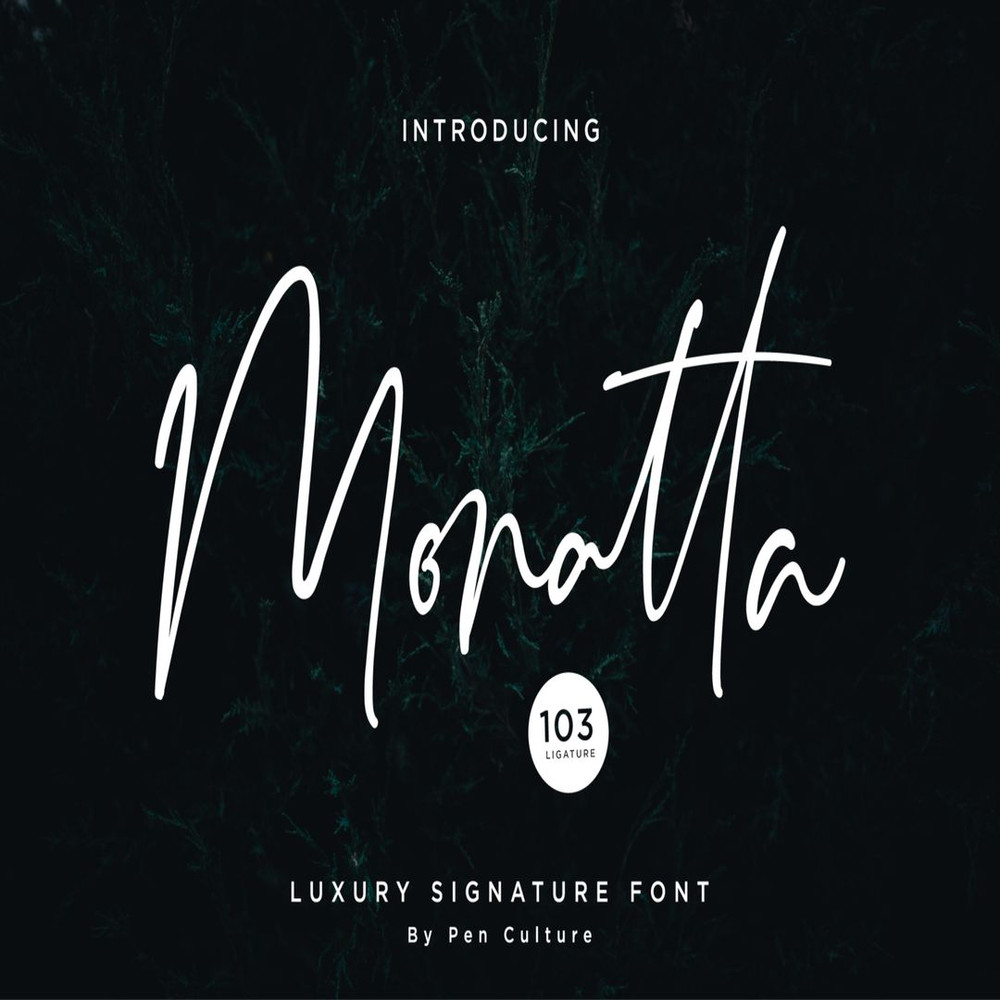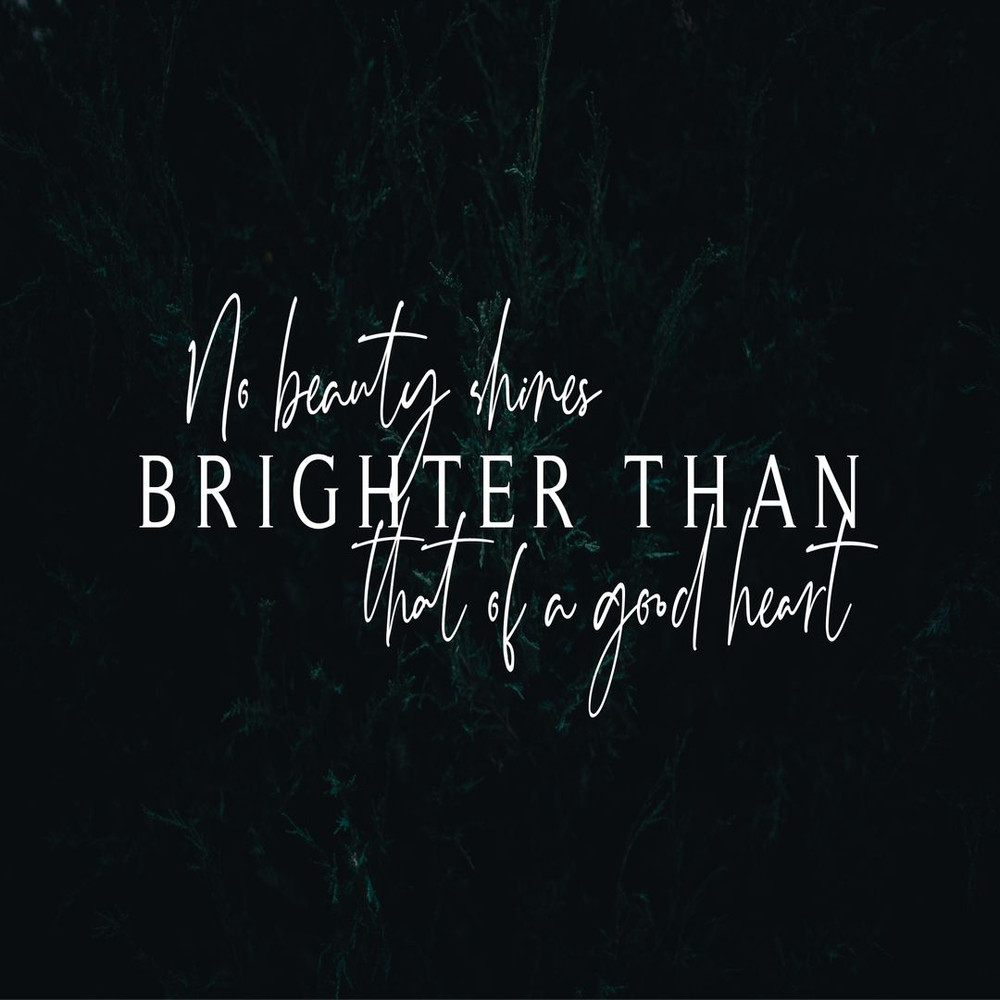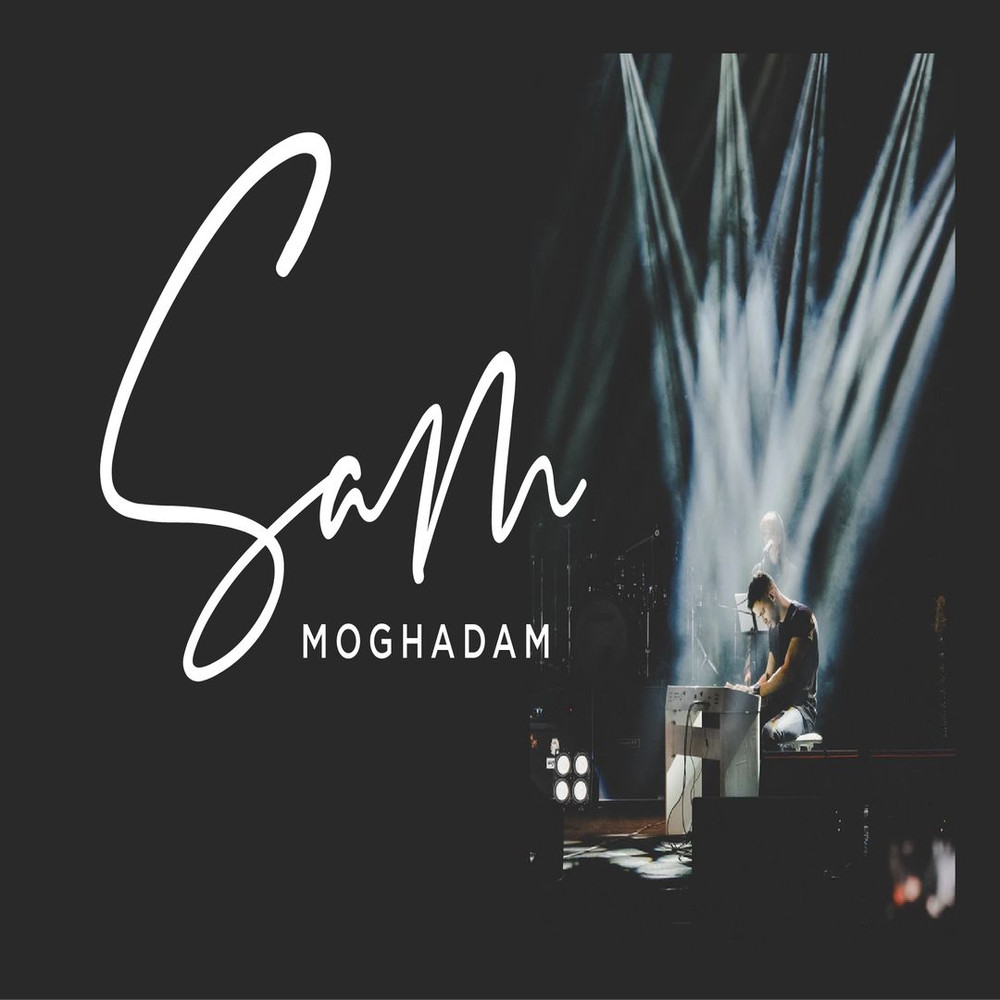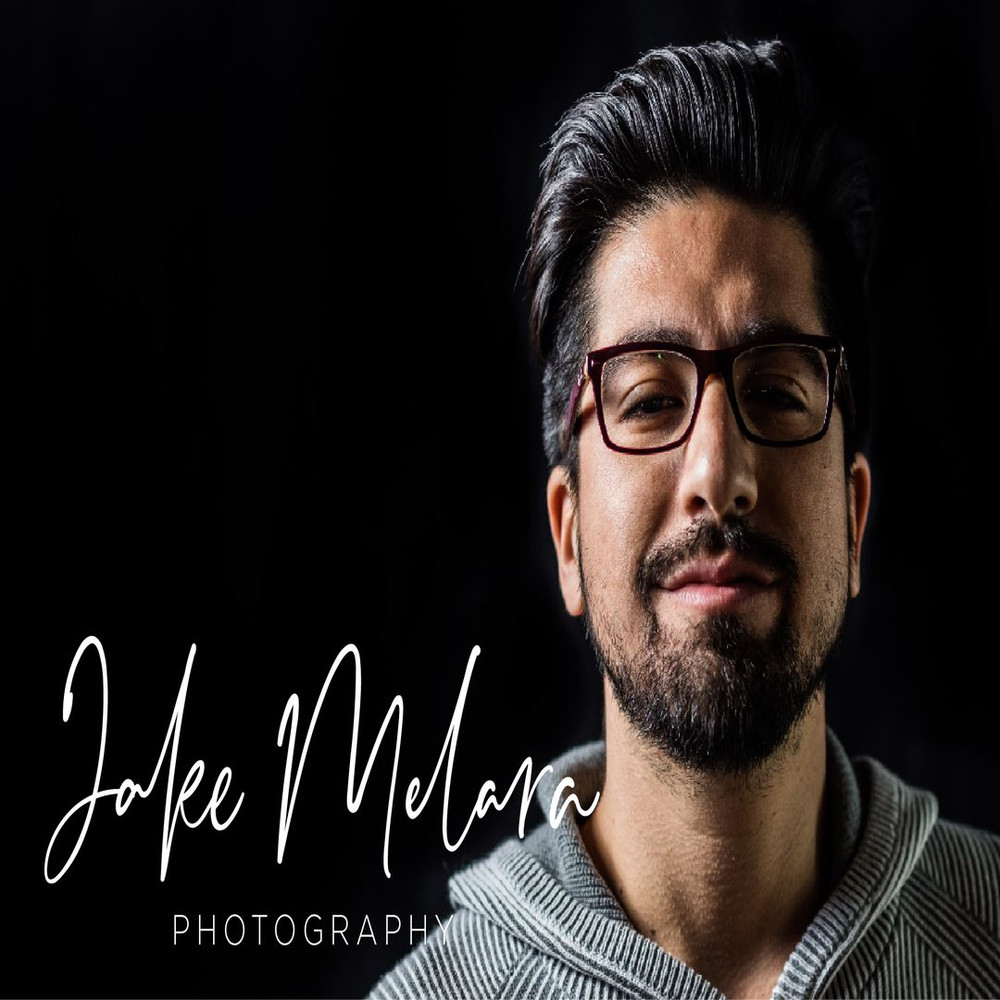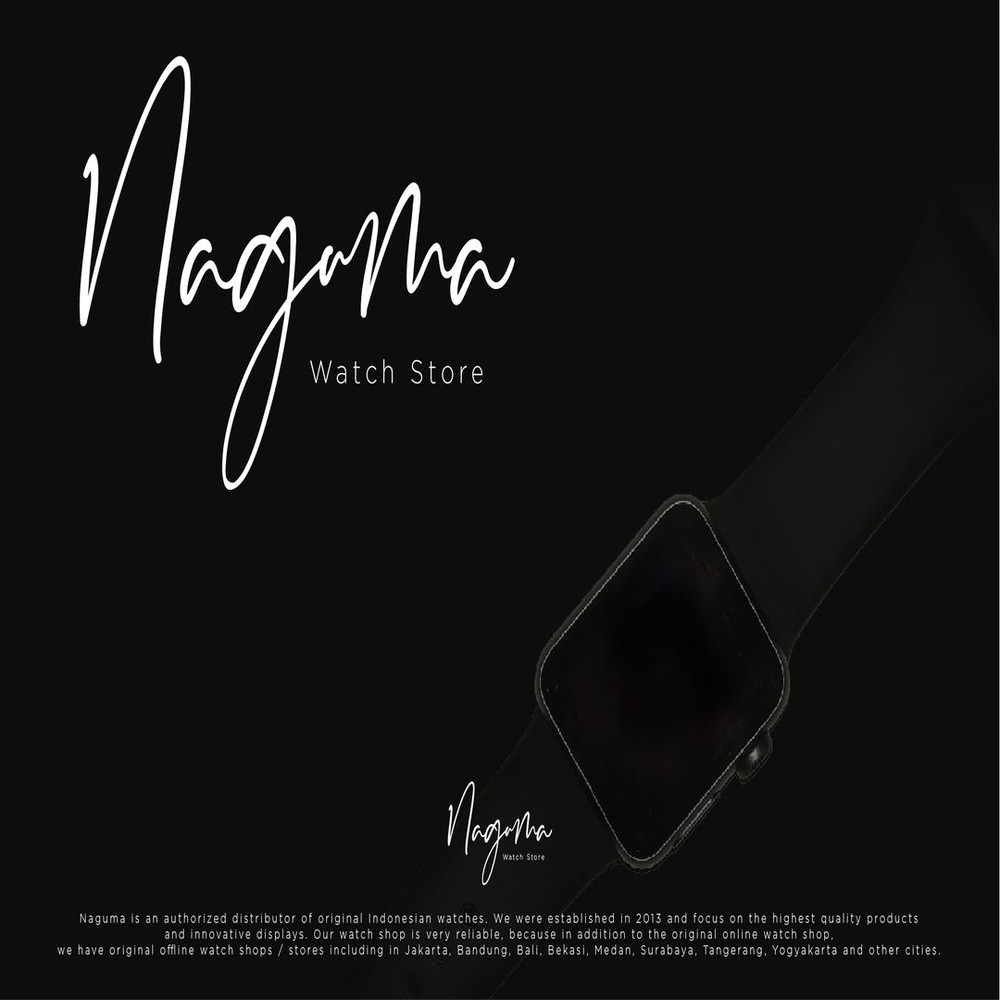
Monatta is a luxury signature font. Created carefully with specific OpenType features include all caps, multilingual support (including currency symbols), 94 ligatures, standard numbers, and many others. this font perfect for any purpose, and very easy to use.
Features :
– Uppercase and Lowercase Letter
– Number and Punctuation
– Stylistic Alternate
– Multilingual Accent :